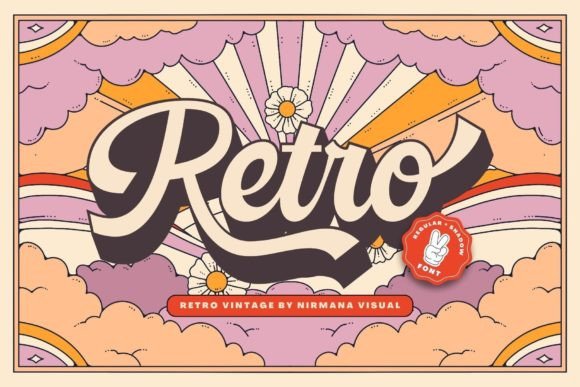
Introducing Retro Vintage Font - the perfect solution to add a touch of nostalgia to your design projects! Created by Sigit Dwipa, this script font family is inspired by the design era of the 70s, bringing a vintage vibe to any design.
Whether you're looking to create logos, branding, social media posts, advertisements, or product designs, Retro Vintage offers a beautiful typographic harmony that will make your designs stand out. With its unique and eye-catching style, this font is perfect for those looking to create a retro and nostalgic feel.
Not only does Retro Vintage Font capture the essence of a bygone era, but it also offers versatility in its use. Its stylish and distinctive appearance can add depth and personality to any design, while its legibility ensures readability at any size.